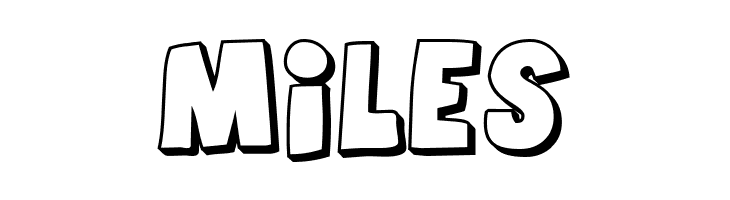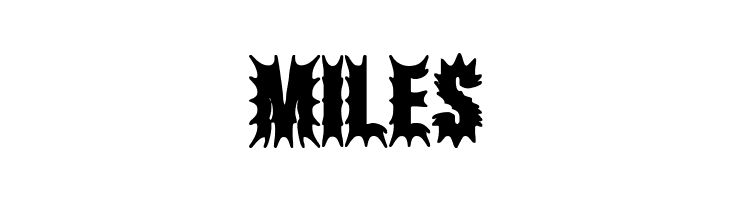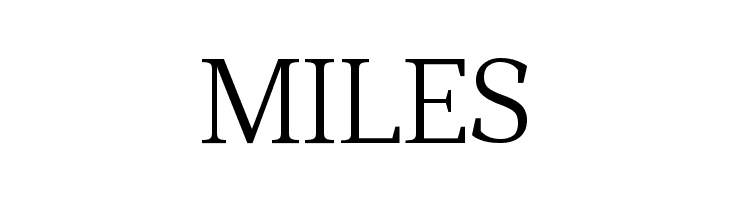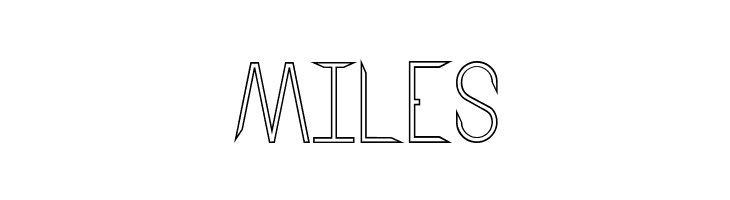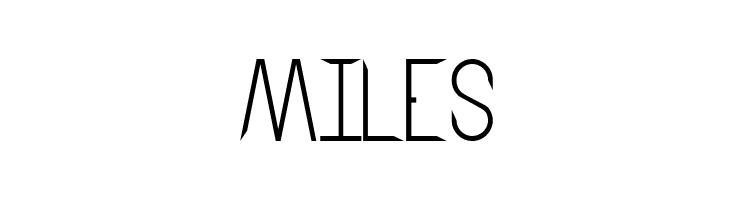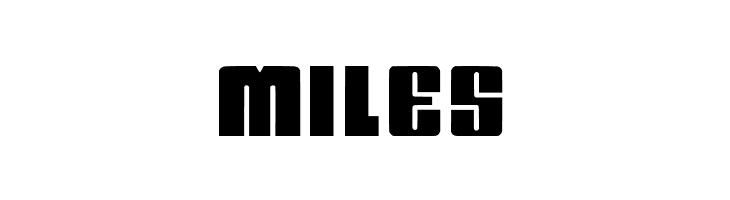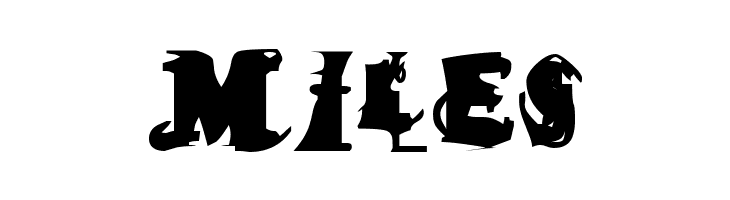
A bold, jagged font with sharp, thorn-like edges for dramatic impact.
A bold, decorative font with intricate, swirling designs and a gothic flair.
A bold, playful font with rounded characters and a cartoonish outline.
A modern, angular font with a futuristic and edgy design.
A futuristic outline font with sharp angles and geometric forms.
A bold, geometric font with an industrial and commanding presence.
A tall, narrow font with a bold, modern appearance and tight spacing.
A classic serif font with elegant strokes and medium contrast.